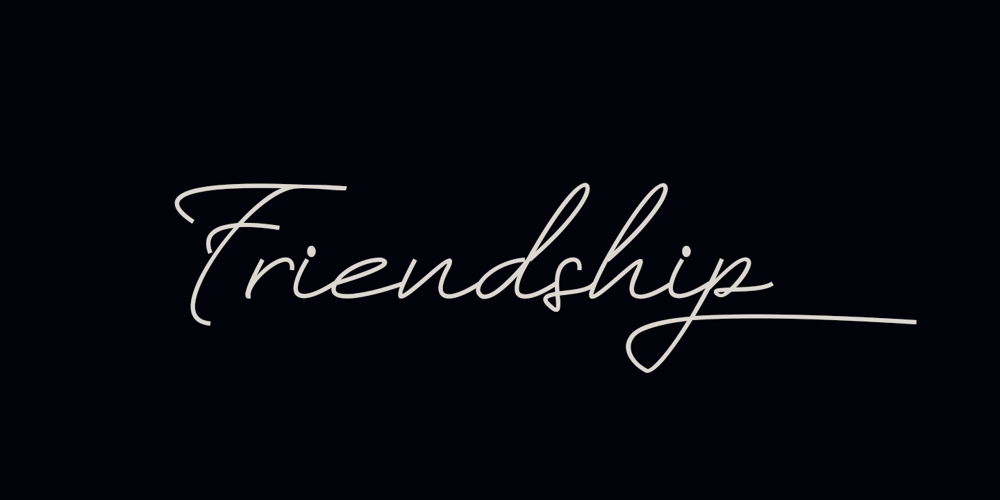
Friendship Font Family was designed by Muhammad Akbar and published by Sinfa. Friendship contains 1 styles and family package options. Friendship is a simple font with a natural look but extraordinary for use on letters, social media posts, instagram, magazines, watermarks on photography, quotes, album covers, logos, business cards, and many other design projects. Friendship comes with uppercase letters, lowercase letters, several alternative lowercase letters, numbers and punctuation to make it easy for you to do what you want.